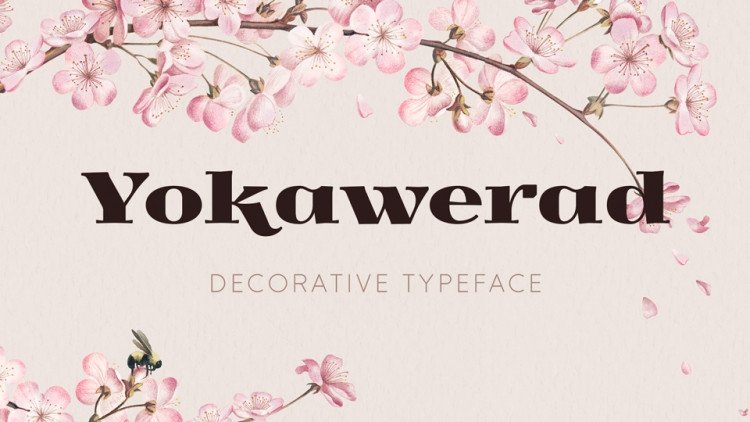
Yokawerad Free Font
Yokawerad Free Font is a decorative high contrast serif typeface. It contains a complete set of upper and lowercase letters, numbers symbols, alternates, ligatures, including extended language support.
Yokawerad font is perfect for logos, wedding design, magazines, social media and more.